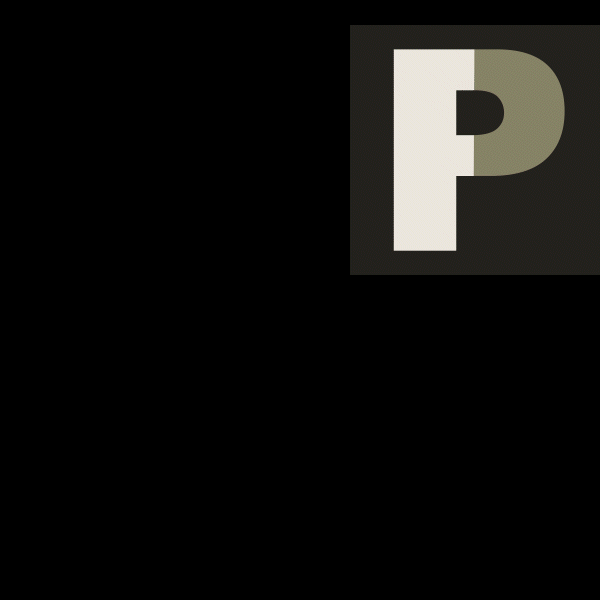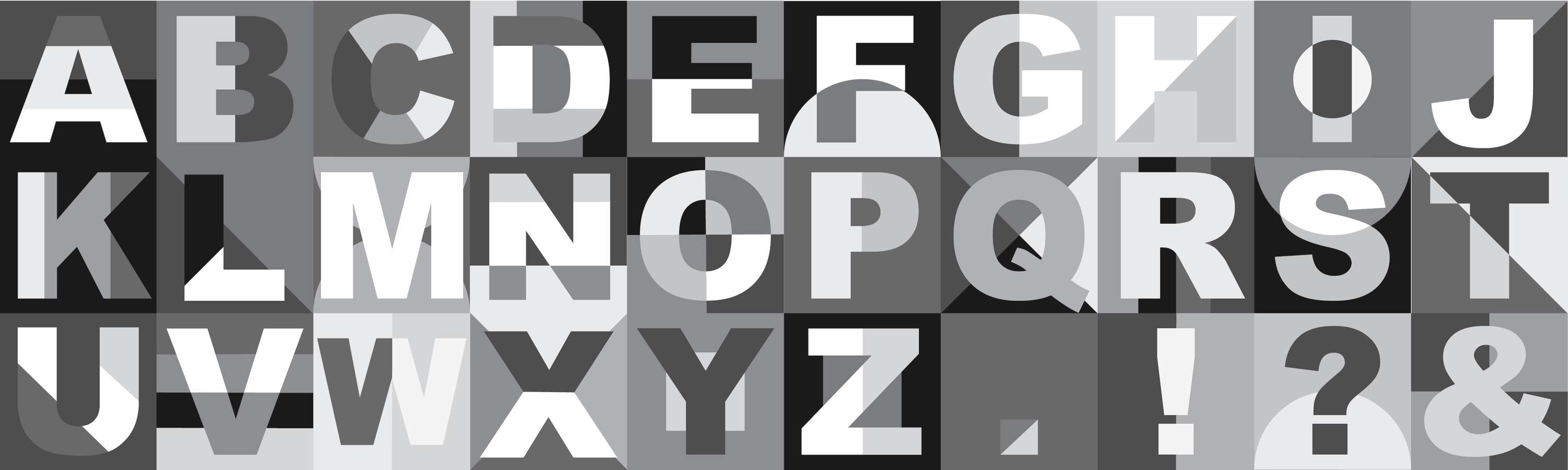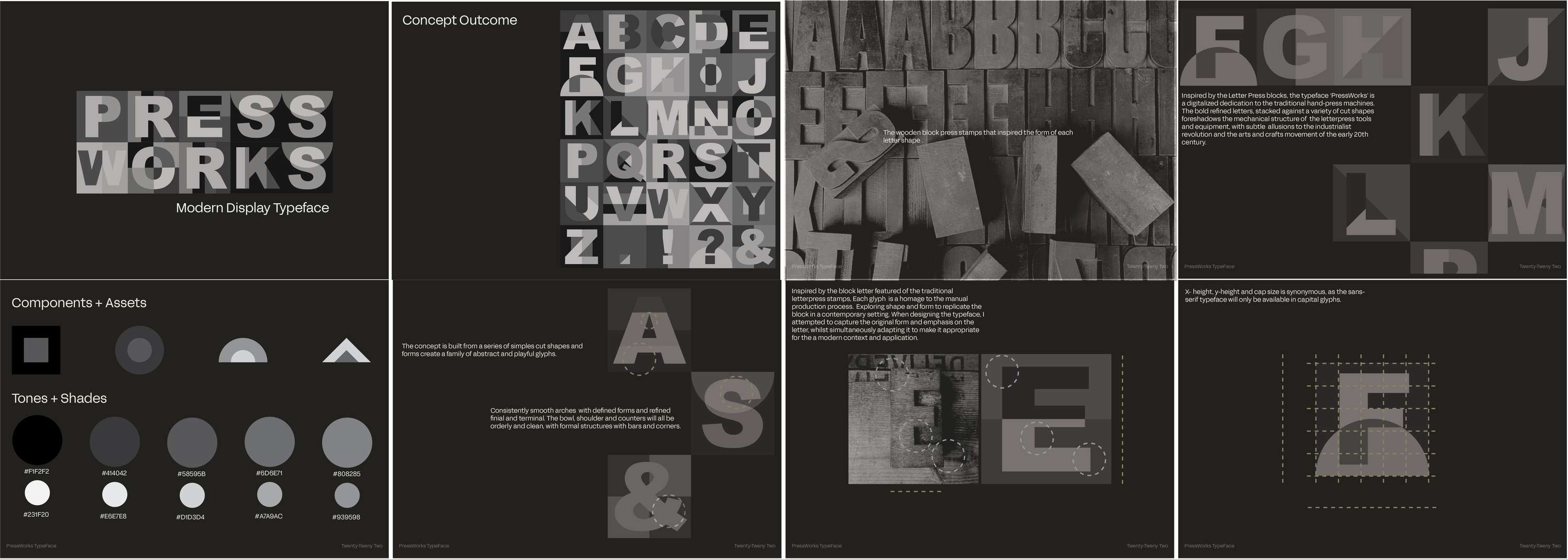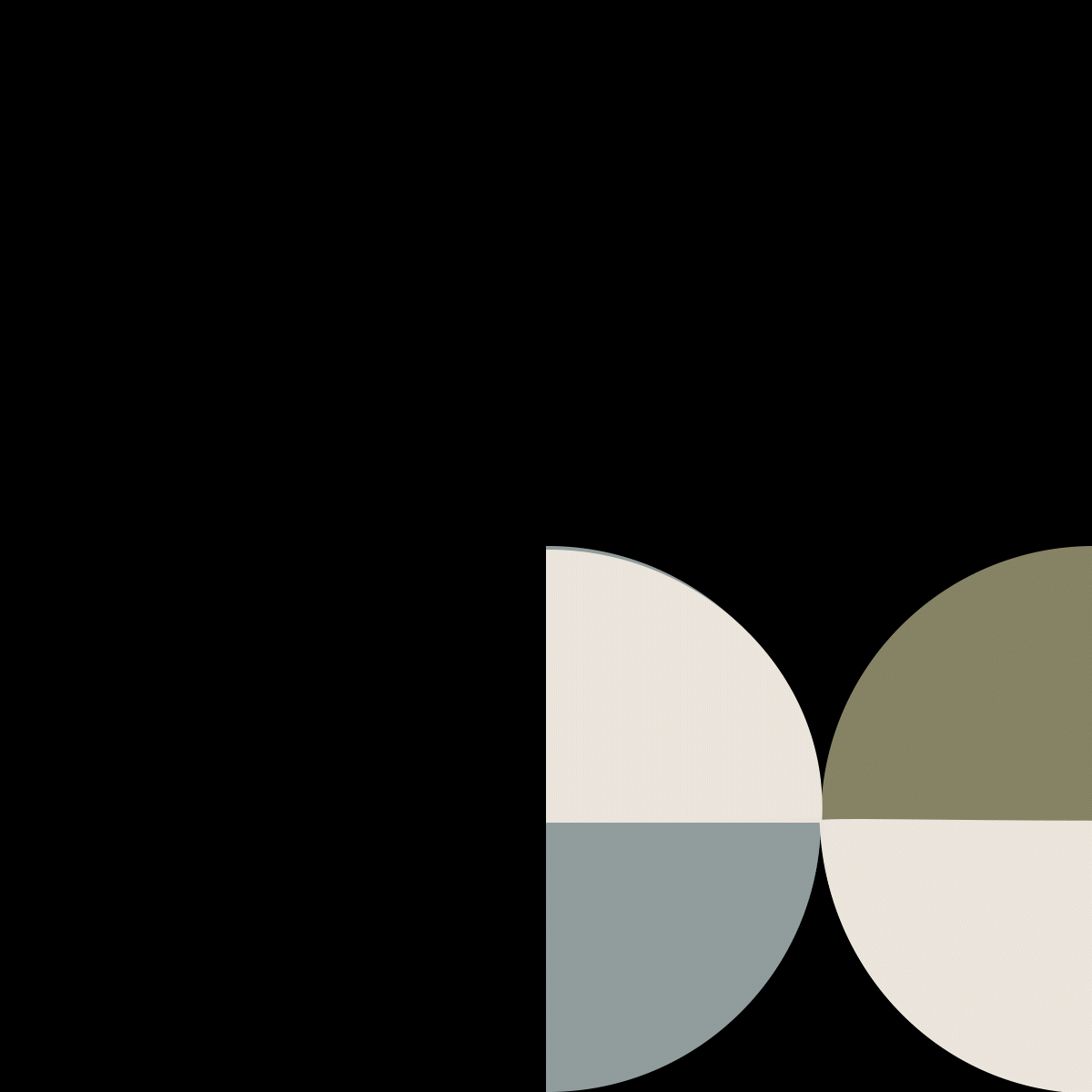
PRESSWORKS Display typeface
• Natasha Montemurro
Inspired by the letterpress blocks, PressWorks is a digitalised dedication to the traditional hand press machines of the industrialist era. The bold refined shapes and glyphs are staged against variety of cut shapes to foreshadow the mechanical structures of the letterpress tools and equipment, will subtile allusions to the arts and craft movement of the 20th century.
PRESSWORKS Display typeface by Natasha Montemurro